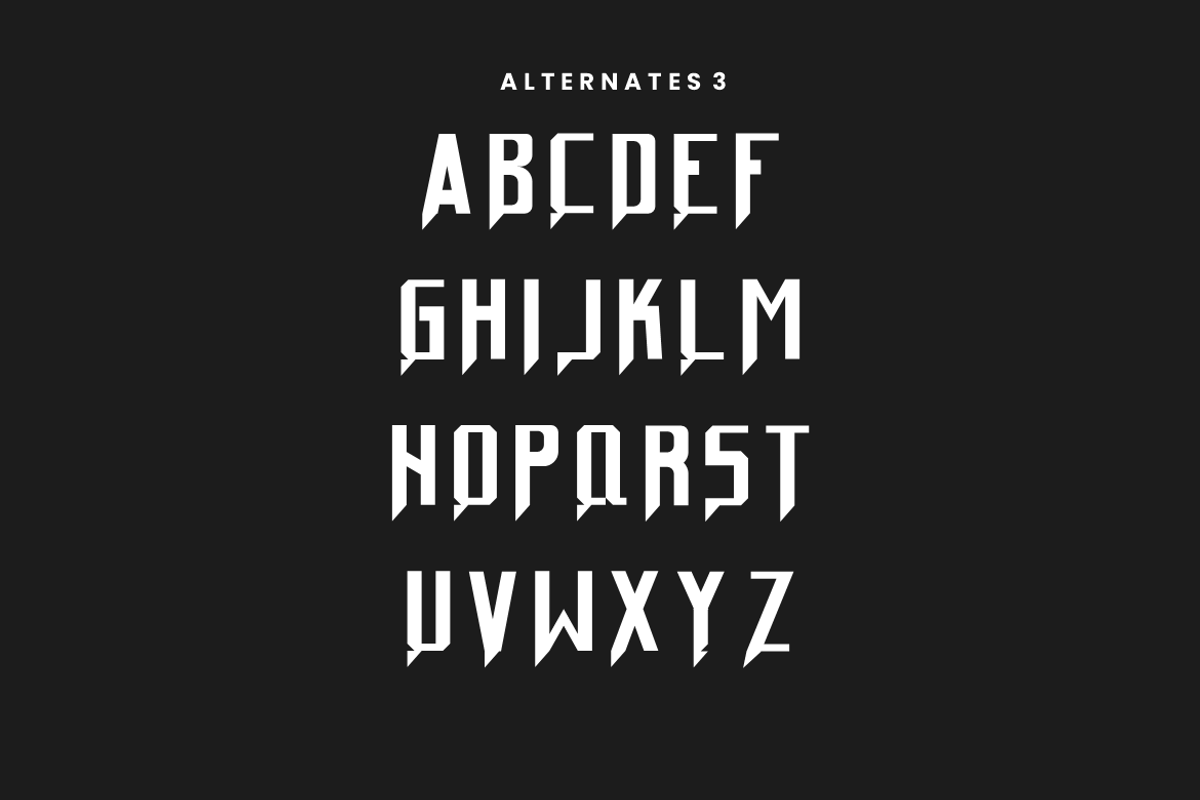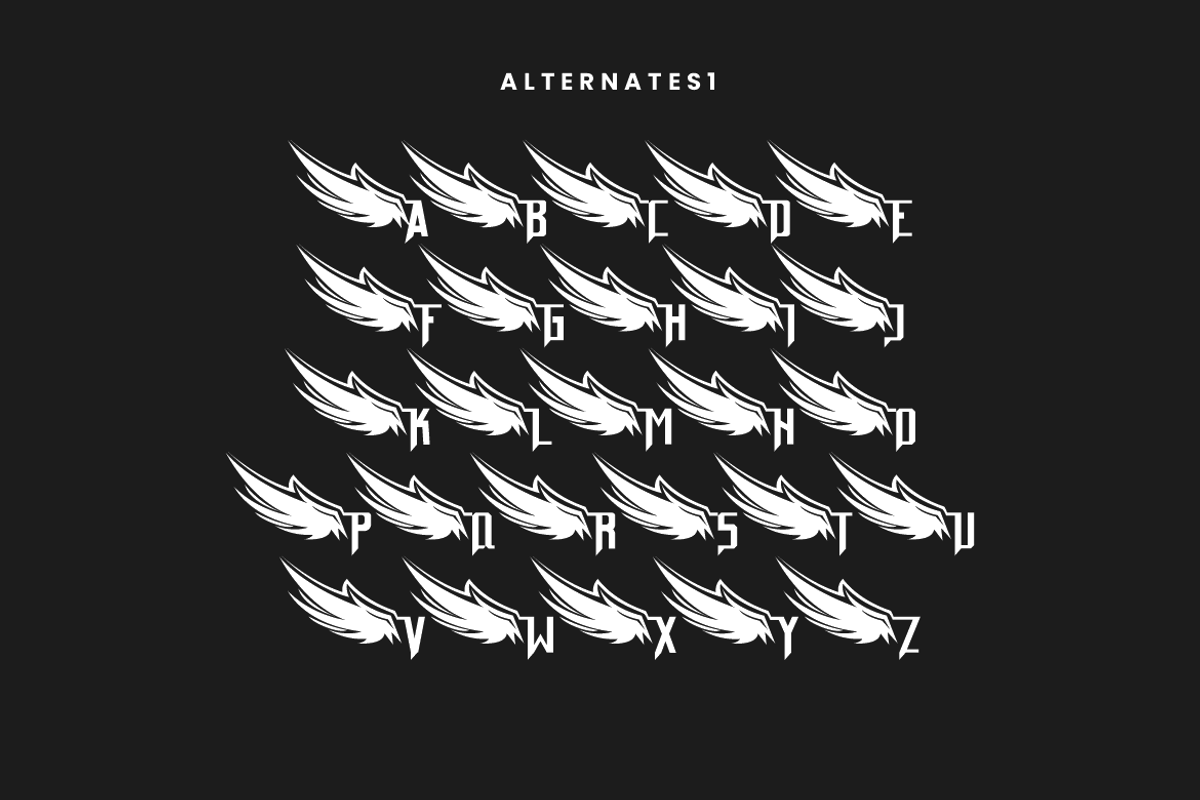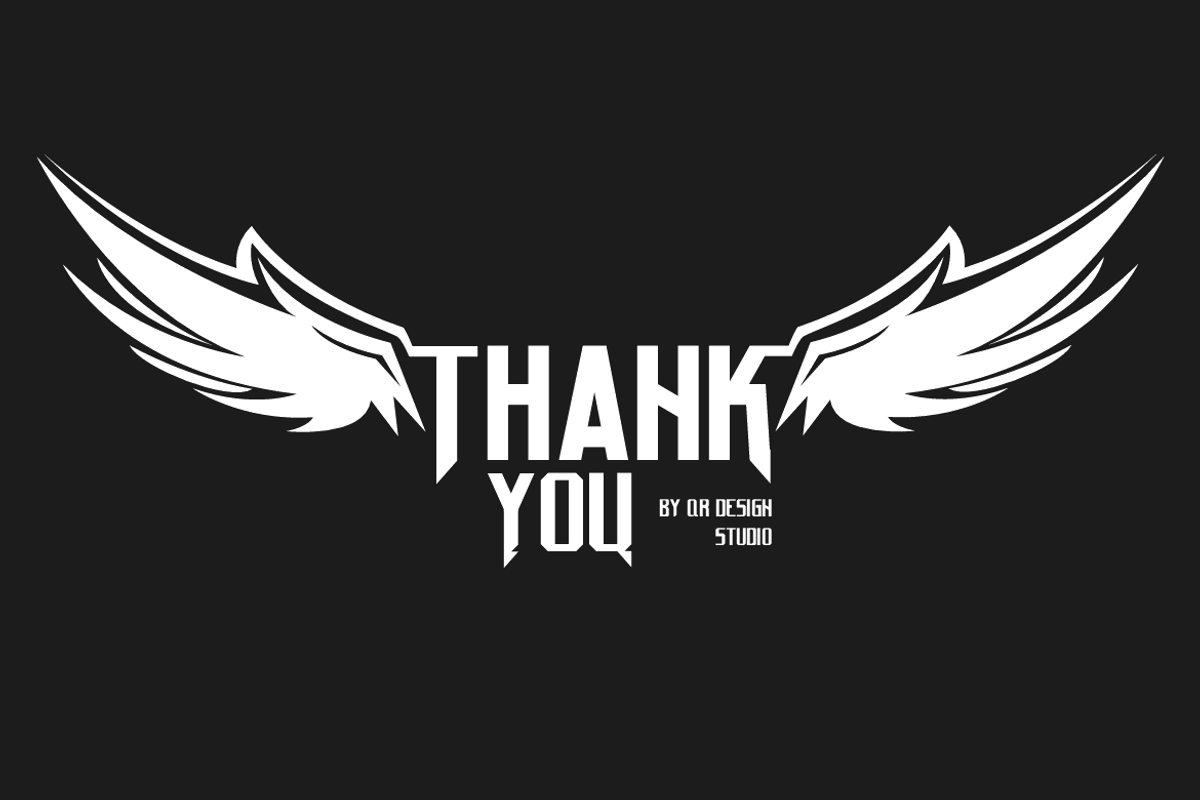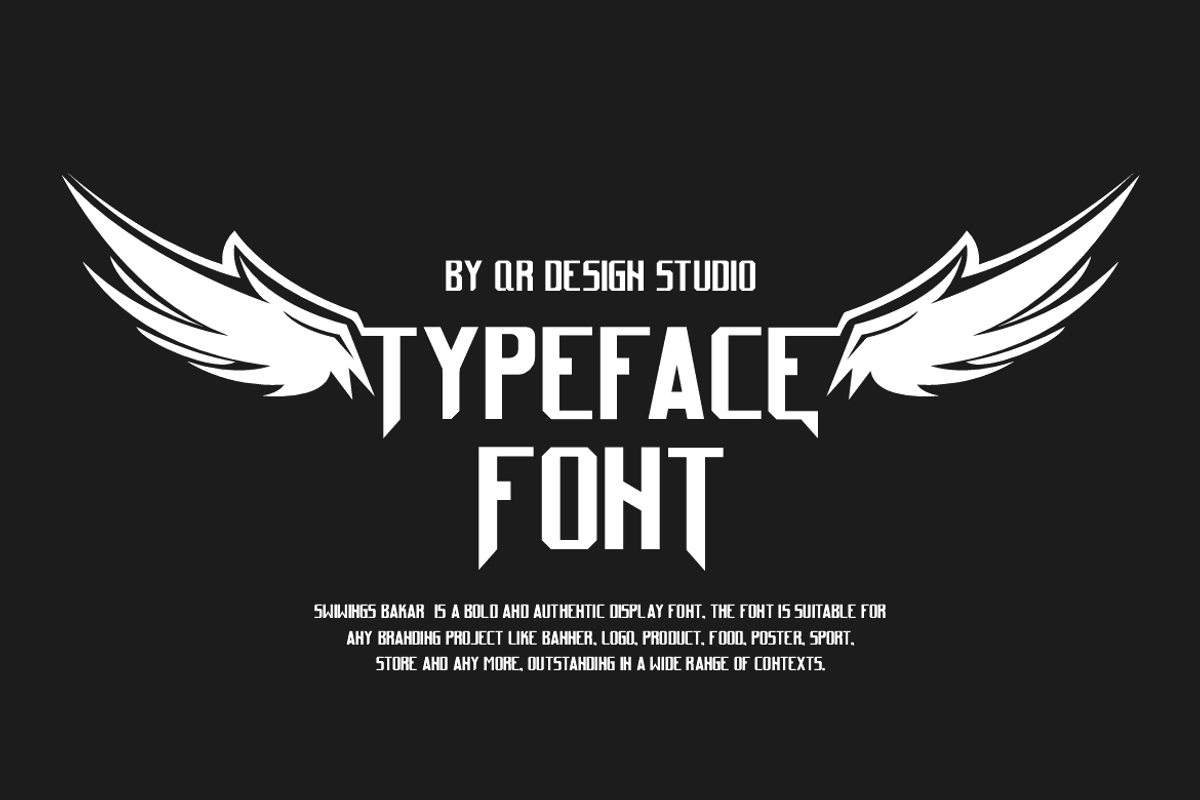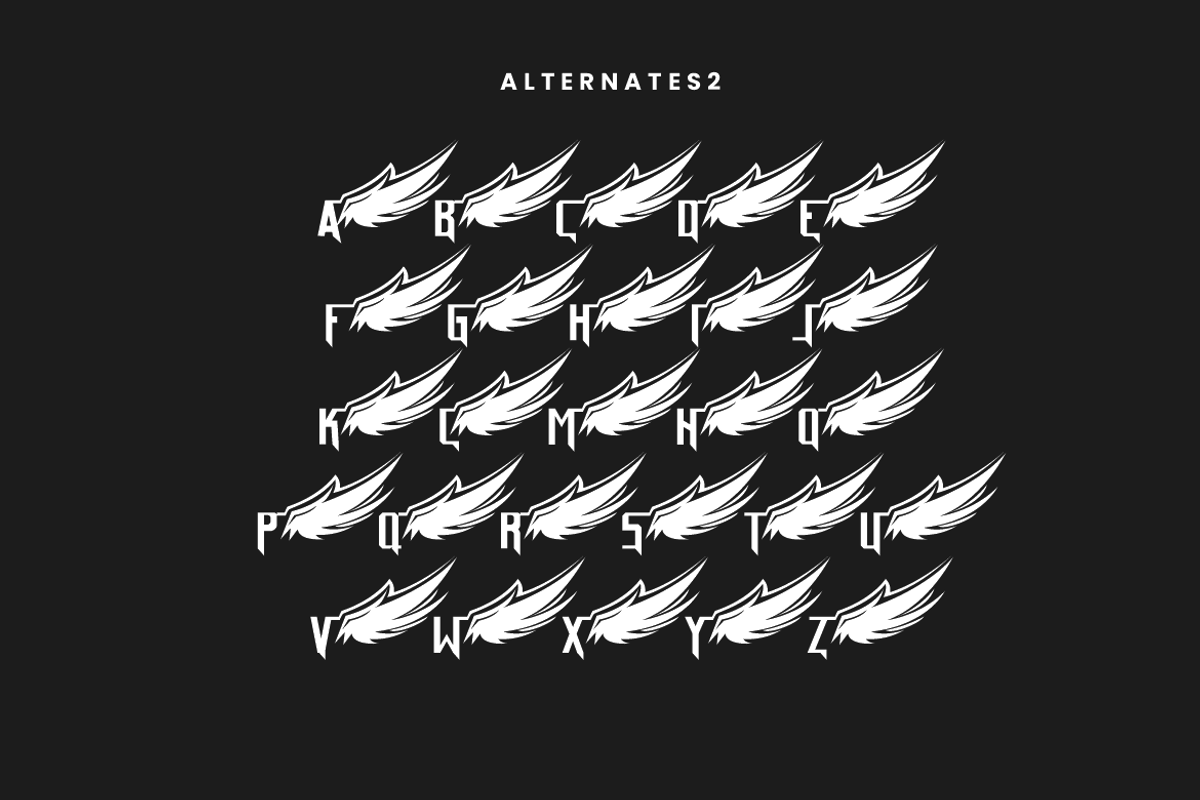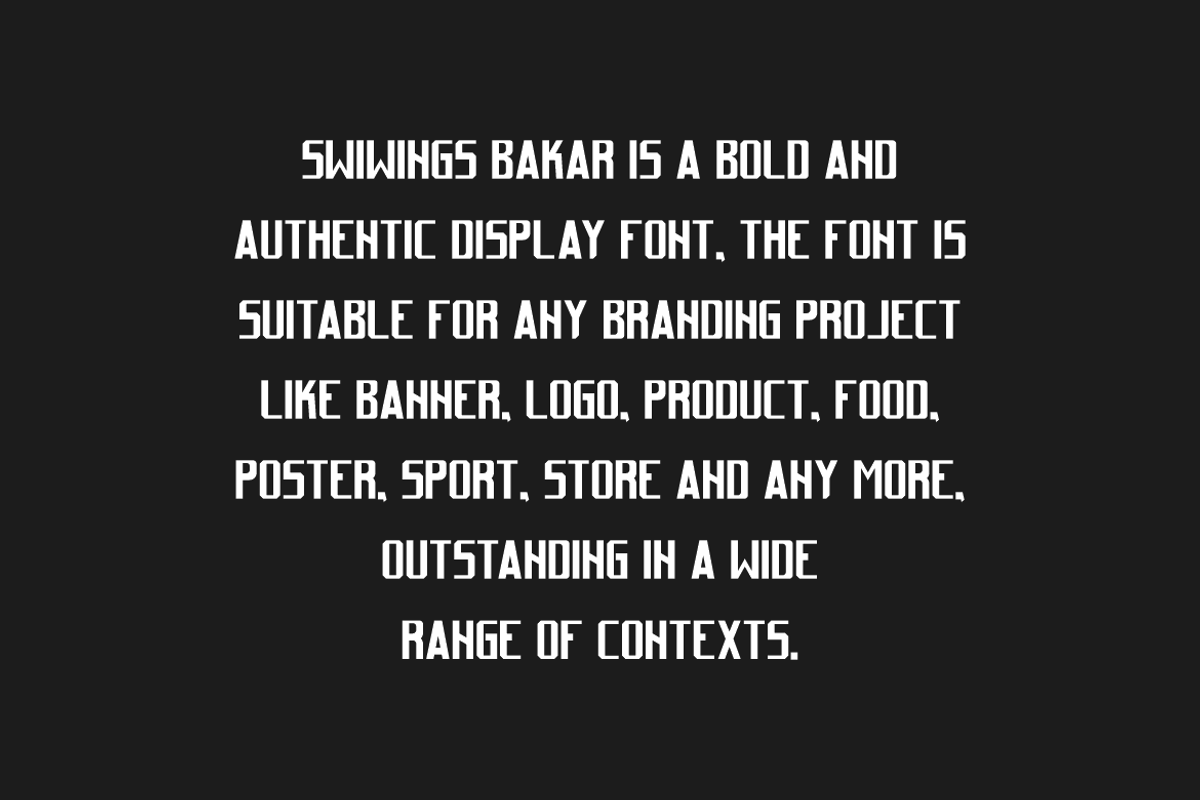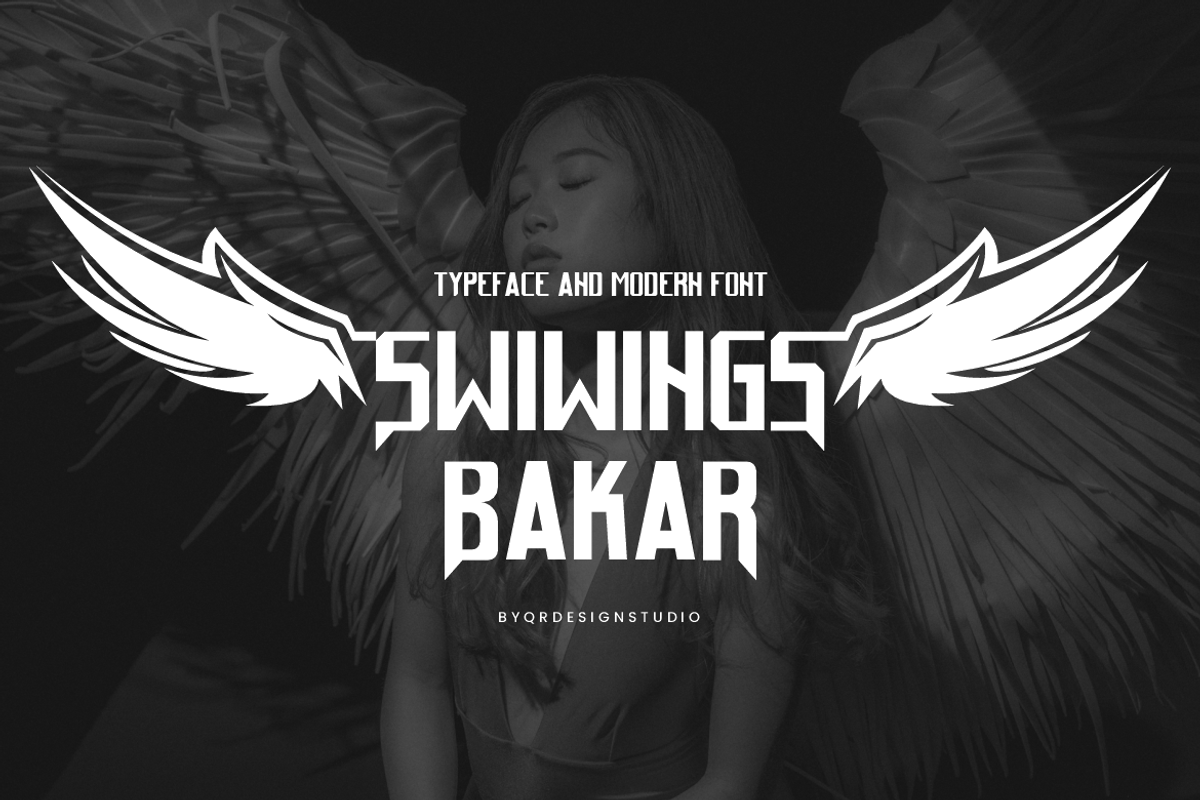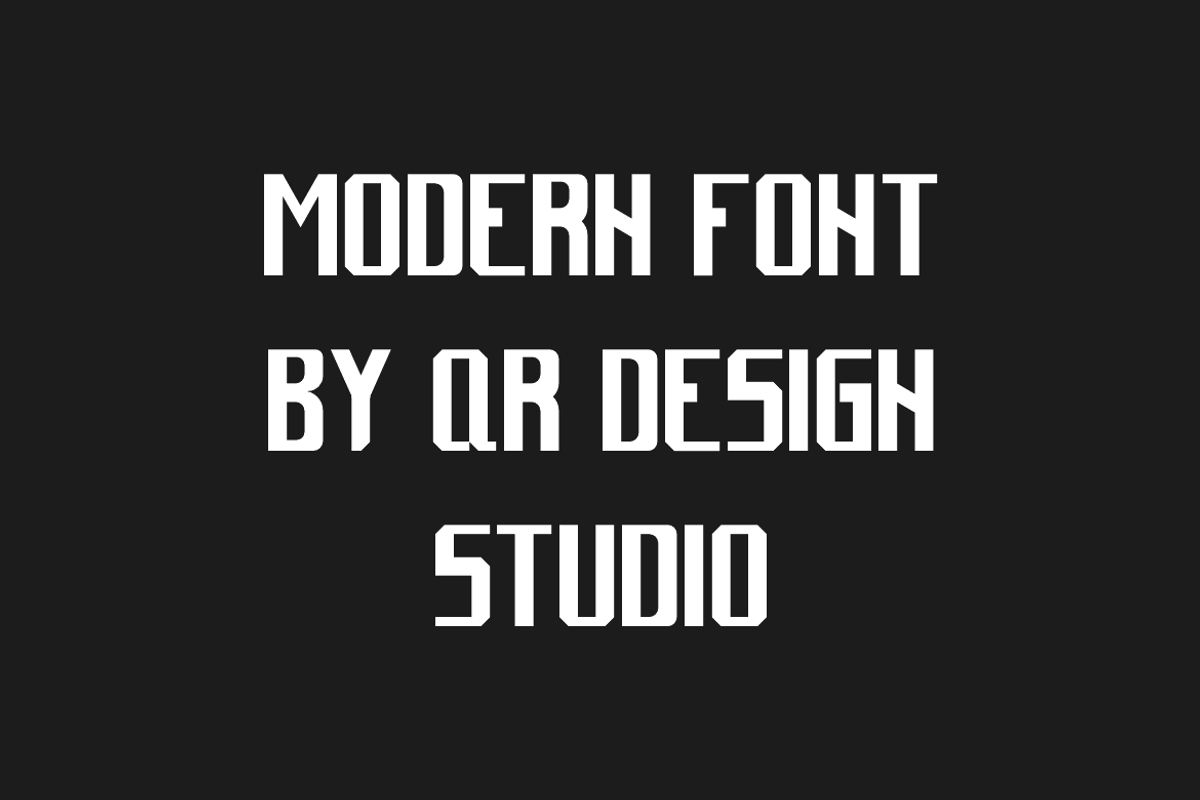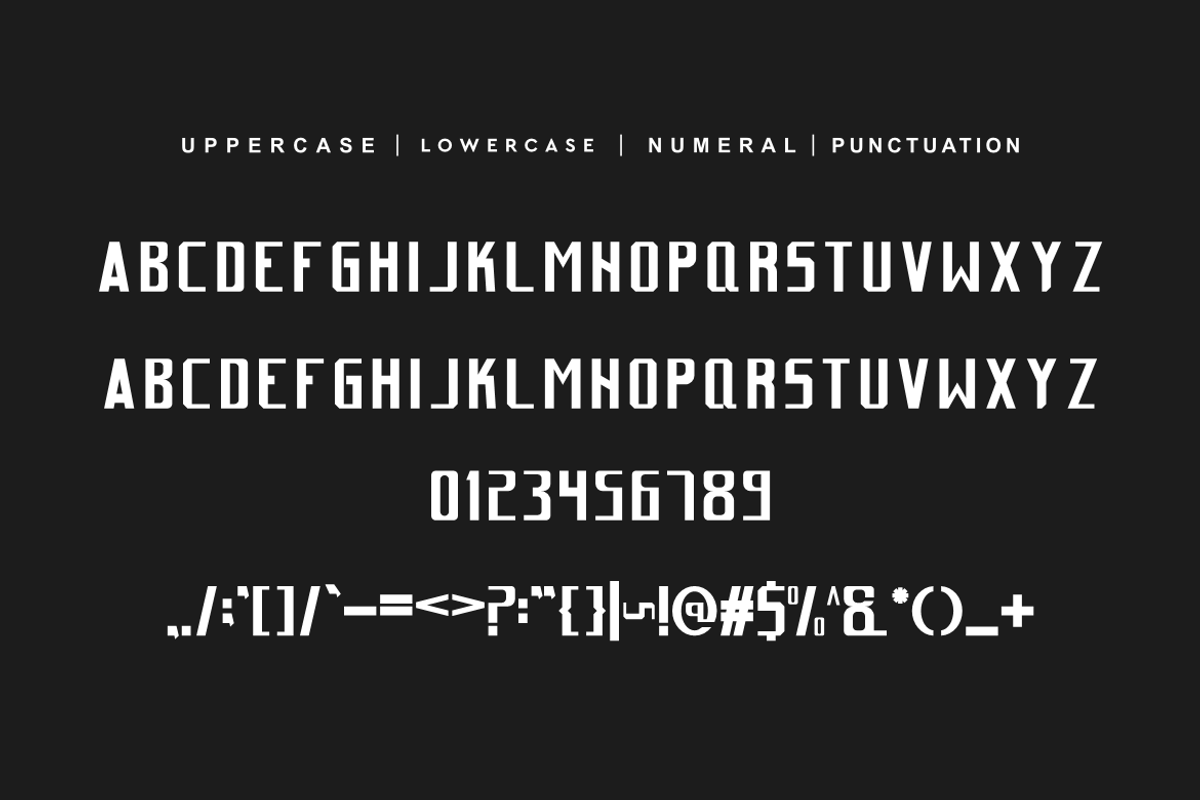
Swiwings Bakar - Typeface Font
Swiwings Bakar - Typeface Font is a sans serif and authentic display font. The font is suitable for any branding project like poster, logo, sport, and many more. Outstanding in a wide range of contexts.